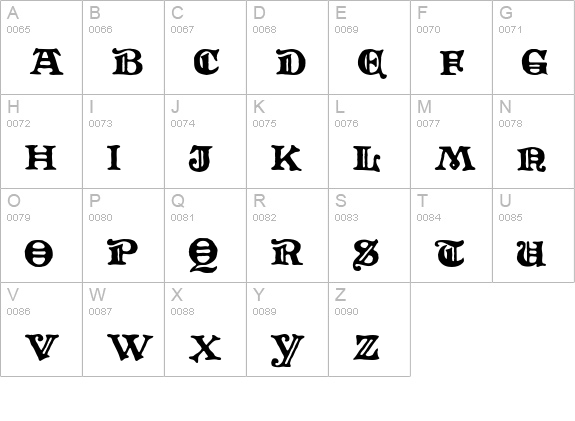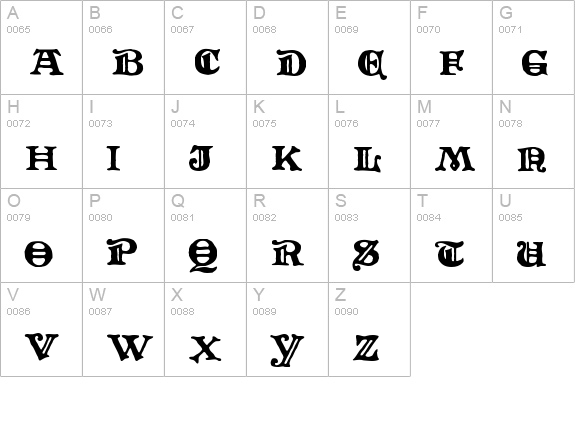
LevelFourteenDruid Font Details
LevelFourteenDruid is a captivating and enchanting font that is perfect for adding a touch of mysticism and magic to any design project. With its intricate and swirling letterforms, this font will transport your audience to a world of fantasy and wonder. Designed with meticulous attention to detail, LevelFourteenDruid captures the essence of ancient druidic symbols and the power of nature. Each letter is carefully crafted to intertwine with one another, creating a harmonious and flowing visual experience. What makes LevelFourteenDruid even more extraordinary is the fact that it is available for free! Yes, that's right. This mesmerizing font can be freely downloaded at FontsMarket.com, allowing you to embrace its enchanting allure without any cost. Whether you are a professional designer looking to add a touch of magic to your work or an individual seeking to create captivating personal projects, LevelFourteenDruid is the perfect choice. With its versatility and unique design, LevelFourteenDruid can be used in a wide range of applications. From book covers and movie posters to logos and branding materials, this font will infuse your creations with an otherworldly charm that is sure to captivate and inspire. So why wait? Immerse yourself in the world of LevelFourteenDruid and unleash your creativity. Download this extraordinary font for free at FontsMarket.com and let the magic begin.